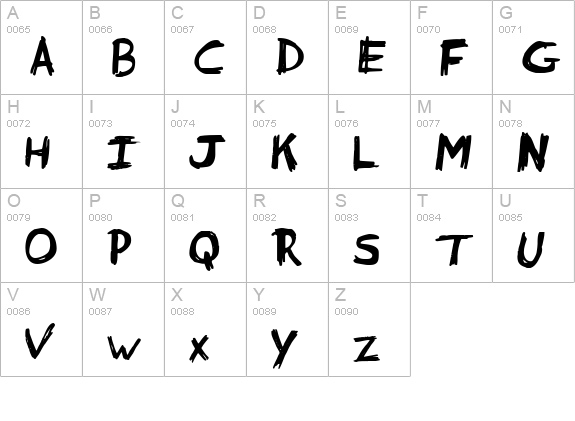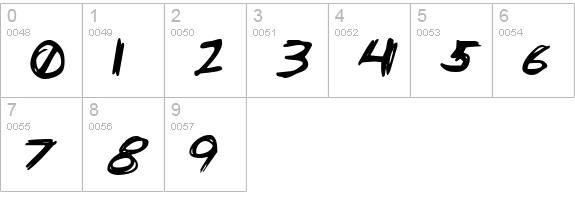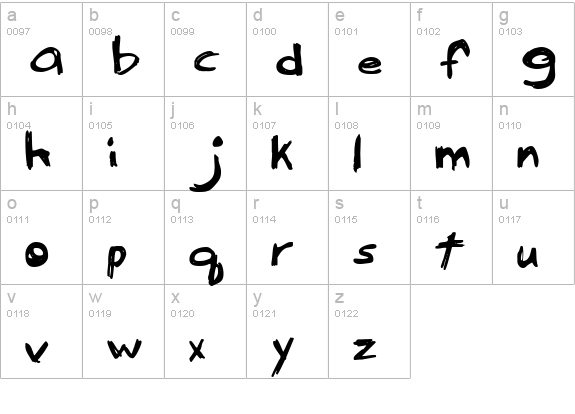
Serpico Font Details
Introducing Serpico, a captivating and versatile font that effortlessly combines elegance with a touch of whimsy. This free typeface is a true gem for any designer or creative enthusiast seeking to make a statement. Serpico boasts a unique and distinctive letterform, with its flowing curves and balanced spacing that exude a sense of modernity and sophistication. Its versatility allows it to seamlessly adapt to a wide range of design projects, from branding and logo creation to editorial layouts, packaging designs, and beyond. With its generous selection of uppercase and lowercase letters, numerals, punctuation marks, and multilingual support, Serpico offers endless possibilities for creative expression. Whether you're looking to create eye-catching headlines or add a touch of elegance to your body text, this font has got you covered. What makes Serpico even more enticing is the fact that it is freely available to download at FontsMarket.com. This means that you can easily access and enjoy this remarkable font without any hassle or cost. So, whether you're a professional designer or a hobbyist, you can elevate your projects to new heights without breaking the bank. Don't miss out on the opportunity to add Serpico to your font collection. Download it today from FontsMarket.com and unlock a world of creative possibilities. Let this captivating font become your go-to tool for creating stunning designs that leave a lasting impression.